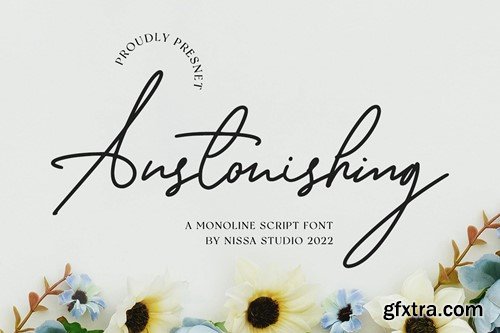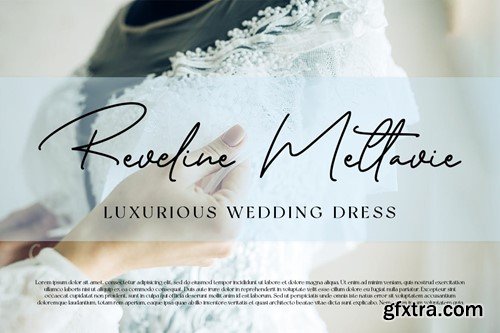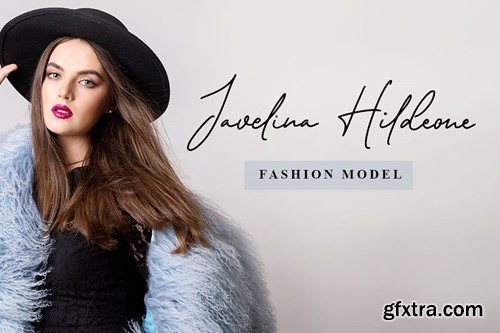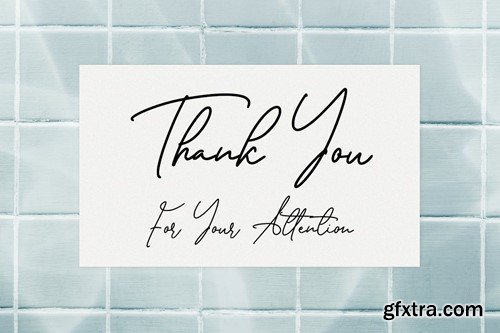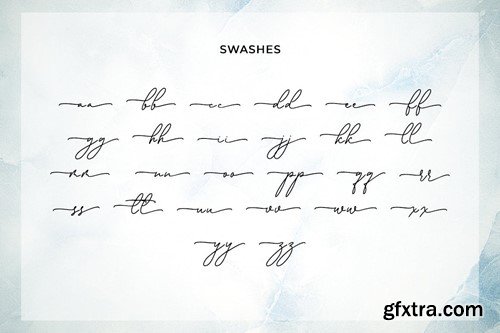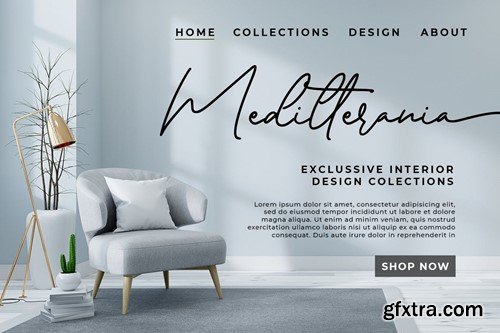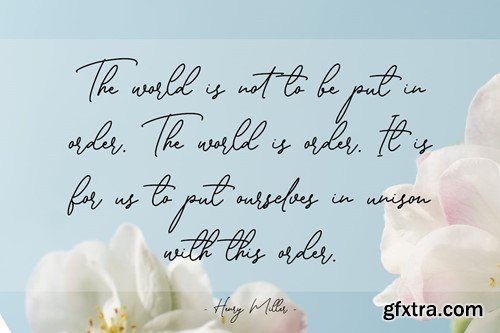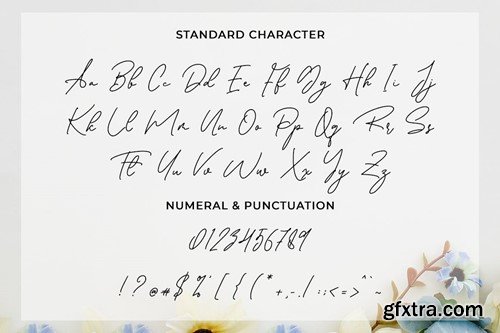
Anstonishing - Monoline Font RJL376K
Anstonishing - Monoline Font
Anstonishing is a beautiful and delicate handwritten font with a unique feel and a stunning impact. It will add a luxury spark to any design project that you wish to create!
• Modern Handwritten Font
• Beautiful Swash (Ending tail)
• Beautiful Titling (Beginning tail)
• Special Ligatures
• Multilingual Support